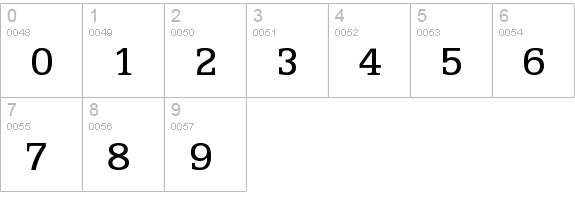
Egyptian505EF-Regular is the standard, neutral variant in the Egyptian505EF typeface family \xE2\x80\x94 well suited to general body text, paragraphs, and standard typographic work.
The Egyptian505EF-Regular font is a versatile and elegant typeface that exudes a sense of classic sophistication. With its clean lines and distinct Egyptian-inspired design, this font is perfect for a wide range of projects, from branding to editorial design. The strong and bold letterforms make a statement while maintaining readability. What sets Egyptian505EF-Regular apart is that it is available for free download at FontsMarket.com. This means you can easily access this stylish font for your personal or commercial projects without any cost. Whether you are creating a logo, poster, or website design, Egyptian505EF-Regular is a fantastic choice that will add a touch of timeless charm to your work. Download this font today and elevate your designs with its unique flair.